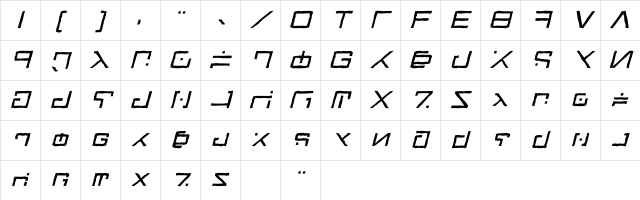
Green Martian Distressed Italic Free Font
Green Martian Distressed Italic
Design Context for Green Martian Distressed
Green Martian Distressed embraces imperfection - its rough, textured character adds raw authenticity to designs that want to feel lived-in and unconventional. The slanted form adds forward momentum and visual energy.
Pro Tip: Use Green Martian Distressed at larger sizes where the texture and irregularity of each letterform can be clearly seen - it loses its character at small sizes.